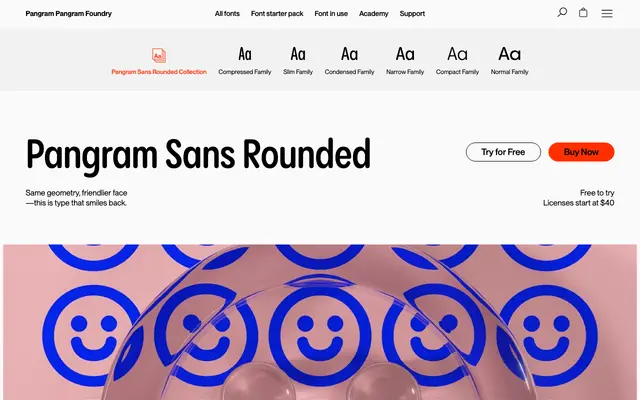
PP Pangram Sans Rounded
Pangram Foundry · Mat Desjardins, Valerio Monopoli · 2021
PP Pangram Sans Rounded specimen from Pangram Foundry
The rounded sibling of Pangram Sans, again with 144 styles across six widths, tuned for friendlier brand work.
Pangram Sans Rounded is the softened version of Pangram Sans by Mat Desjardins and Valerio Monopoli. It keeps the same six-width, 144-style architecture and Cyrillic support, with rounded terminals giving the heavier weights a more approachable feel. Useful where Pangram Sans would feel too austere, particularly in consumer brand work, packaging and apps.